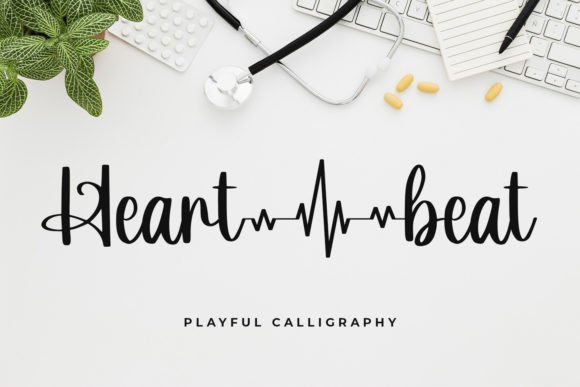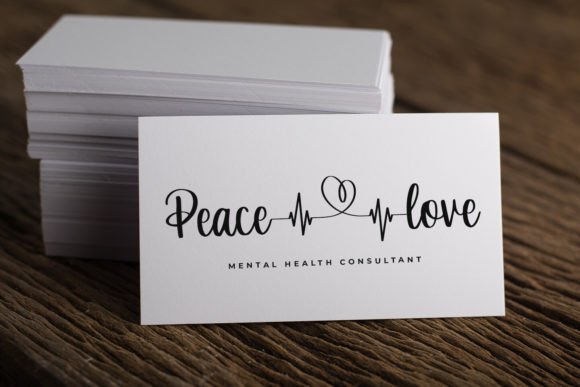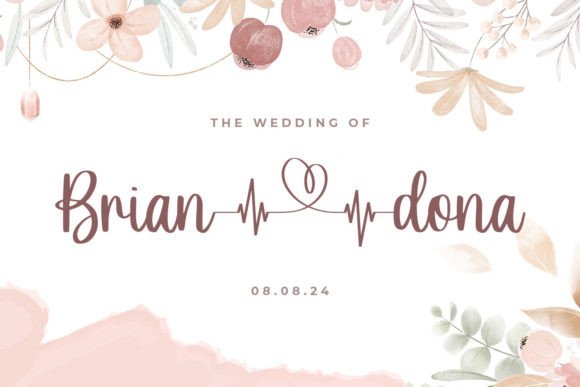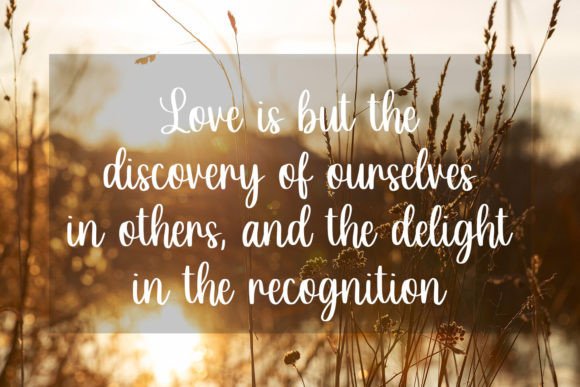
Heart Beat Font: Playful Calligraphy & Dingbats for Cute Designs
About the Heart Beat Font
The wait is over! The incredible Heart Beat Font is now available for your design toolkit. HEART BEAT
– playful calligraphy font-
HEART BEAT is a unique bouncy calligraphy font.
It is great for branding, quotes, logos, t-shirt designs, tote bag designs, cards, banners, social media, and more.
Heart Beat’s playful energy makes it ideal for projects needing a fun, approachable feel. It excels in headlines, short text blocks, and branding elements where its bouncy nature adds personality. Consider it for logos, social media graphics, and packaging for youthful or creative brands. Avoid using it for large bodies of text or UI elements; its calligraphic style is less legible at smaller sizes.
Pairing Heart Beat with a clean sans-serif like Montserrat for body copy provides excellent contrast and readability. For a more sophisticated look, consider pairing it with a classic serif such as Garamond for a balanced elegance. Alternatively, a geometric sans-serif like Futura could create a modern, playful contrast.
Heart Beat’s overall personality is best described as youthful and energetic. Its irregular baseline and varied letterforms inject a sense of spontaneity, making it perfect for brands wanting to communicate a fun, dynamic image.
Heart Beat Font Usage Examples
Heart Beat Font Example